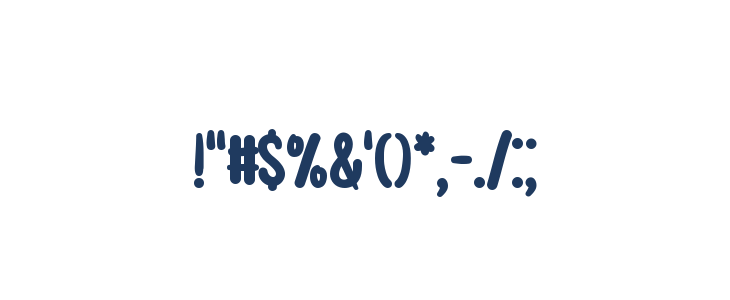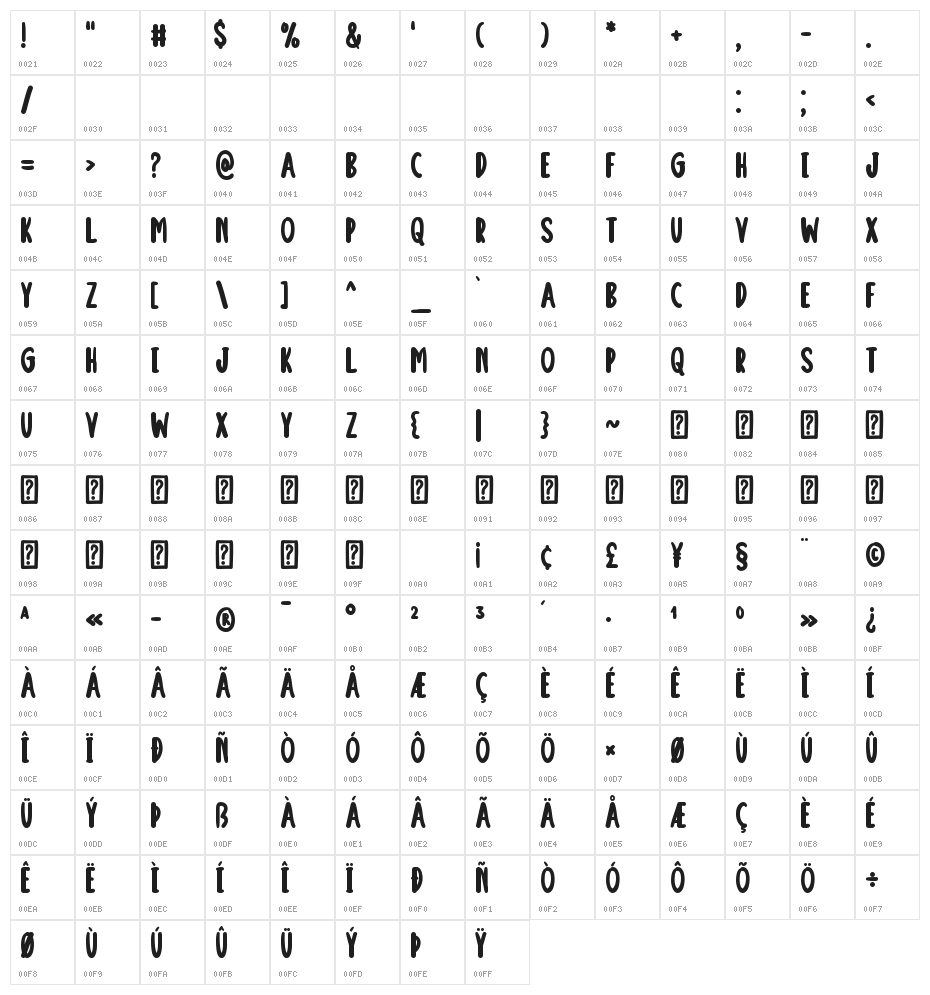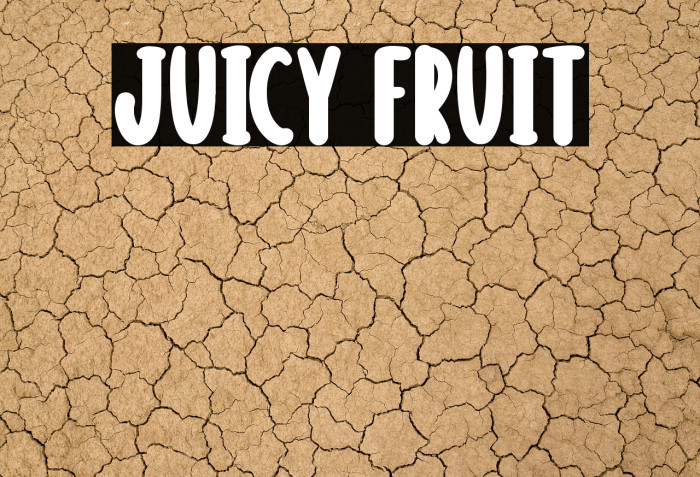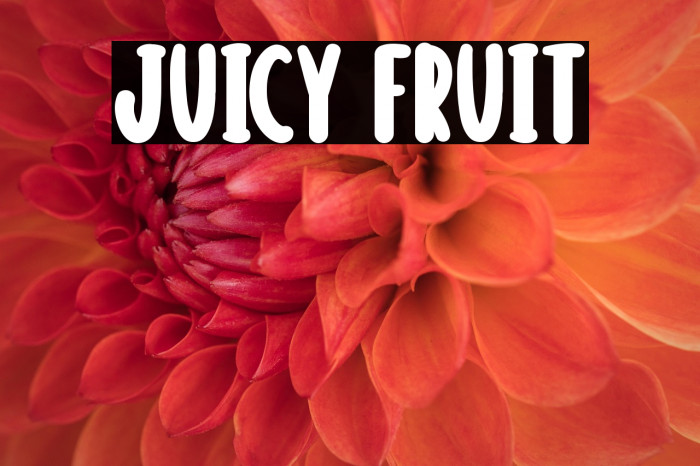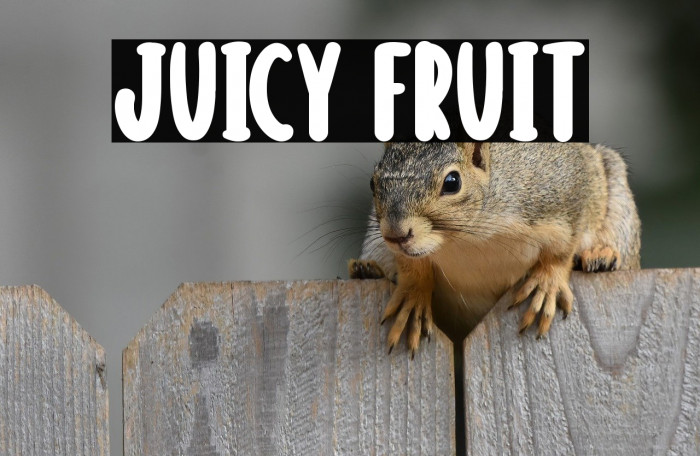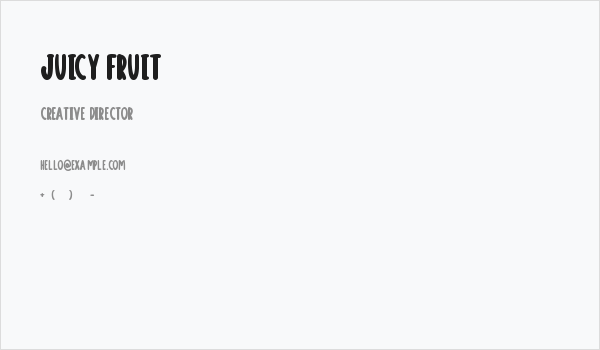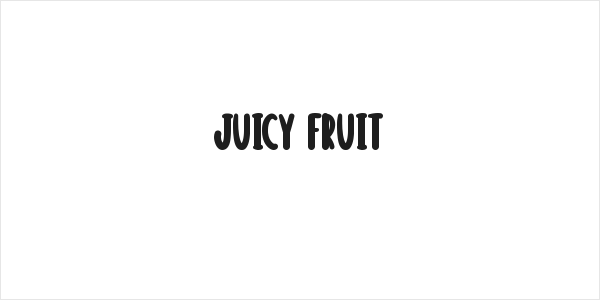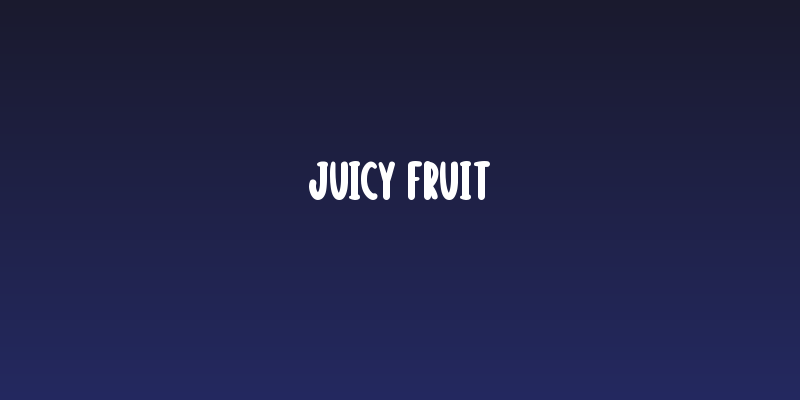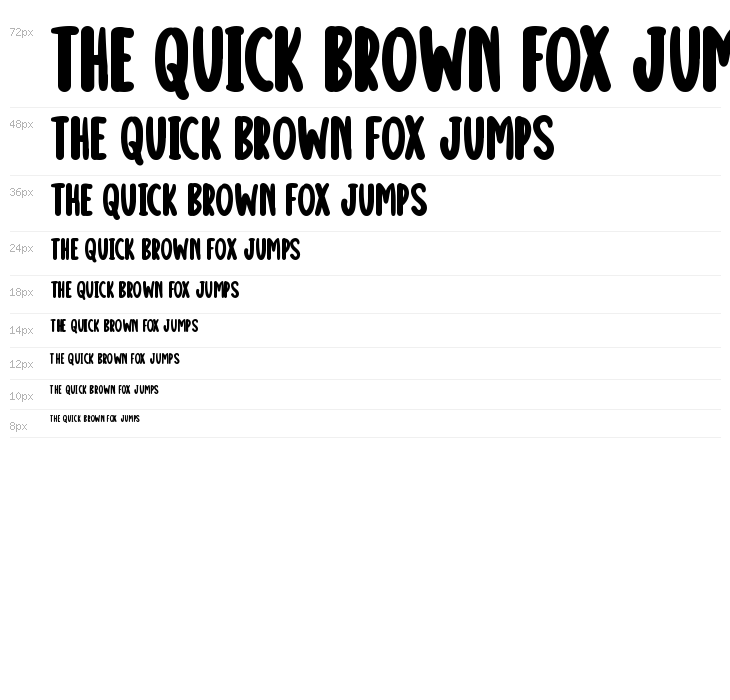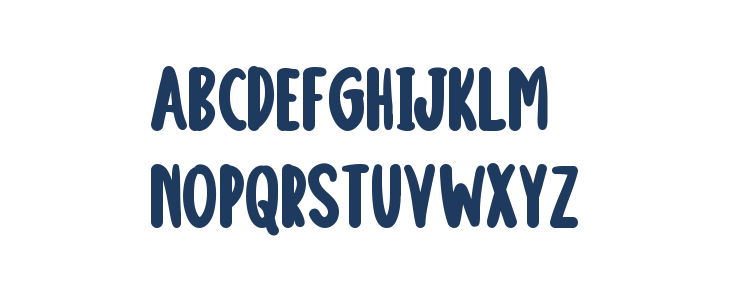
Juicy Fruit Font
Juicy Fruit Description
This playful and bold font features rounded, thick strokes that give it a friendly and approachable appearance. The characters are slightly condensed, with a consistent weight throughout, creating a cohesive and uniform look. The uppercase and lowercase letters maintain a similar style, with smooth curves and minimal contrast in stroke thickness. The font includes a full set of punctuation and special characters, making it versatile for various design needs. Its whimsical and fun style is perfect for projects that require a touch of personality and creativity.
| Proposed Projects | Ideal for children's books, playful branding, posters, and social media graphics. |